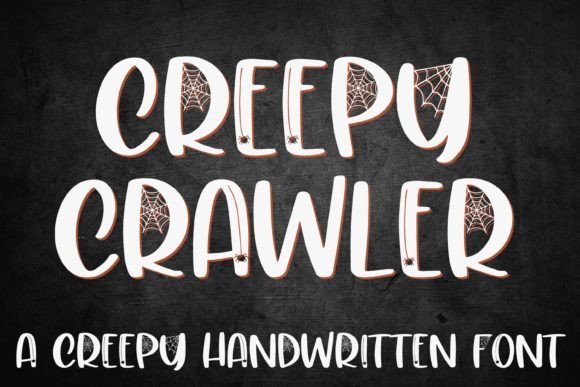
The Perfect Font for Spooky Fun: Creepy Crawler Font
As a creative, there’s nothing quite like the rush of inspiration that hits you in the middle of the night. Maybe you’re browsing through Pinterest, or scrolling through Instagram, and suddenly you stumble upon the perfect font to match your latest Halloween project. For me, that font is the Creepy Crawler Font – a delightful, hand-drawn display font that screams spooky fun.
With its adorable spiders and intricate webs, the Creepy Crawler Font is the perfect addition to any Halloween craft, from greeting cards to t-shirt designs. And let’s be honest, who wouldn’t want to create something that’s both creepy and cute at the same time? As a designer, you know how valuable a versatile font can be – and that’s exactly what the Creepy Crawler Font offers.
- Unique Characteristics: The Creepy Crawler Font features a creepy, crawly, and eerie feel, with a unique blend of organic and mechanical elements, making it perfect for horror-themed designs and projects.
Designer Review: Creepy Crawler Font
Overall, I think the Creepy Crawler Font has some unique qualities that make it stand out, but it’s not without its limitations. ✨ One of the things that works well is the font’s ability to evoke a sense of eeriness and mystery. The creepy crawler design is perfect for projects that need a touch of the macabre or a sense of unease.
- ✨ Distinctive design that grabs attention
- ✨ Perfect for horror-themed projects or Halloween designs
- ✨ Can be used for titles, headings, or other display text
- ⚠️ Not suitable for large blocks of text, as it can be difficult to read
In terms of overall impression, I think the Creepy Crawler Font is a great choice for designers who want to add a touch of the unknown to their projects. While it may have some limitations, its unique design and eerie atmosphere make it a standout choice for the right project.
Use the Creepy Crawler Font to create a spooky atmosphere in your designs.
Combine it with other Halloween-themed elements, such as ghosts, bats, and pumpkins.
Use the Creepy Crawler Font for:
Halloween-themed designs and invitations.
Spooky advertisements and marketing materials.
Creepy book covers and title pages.